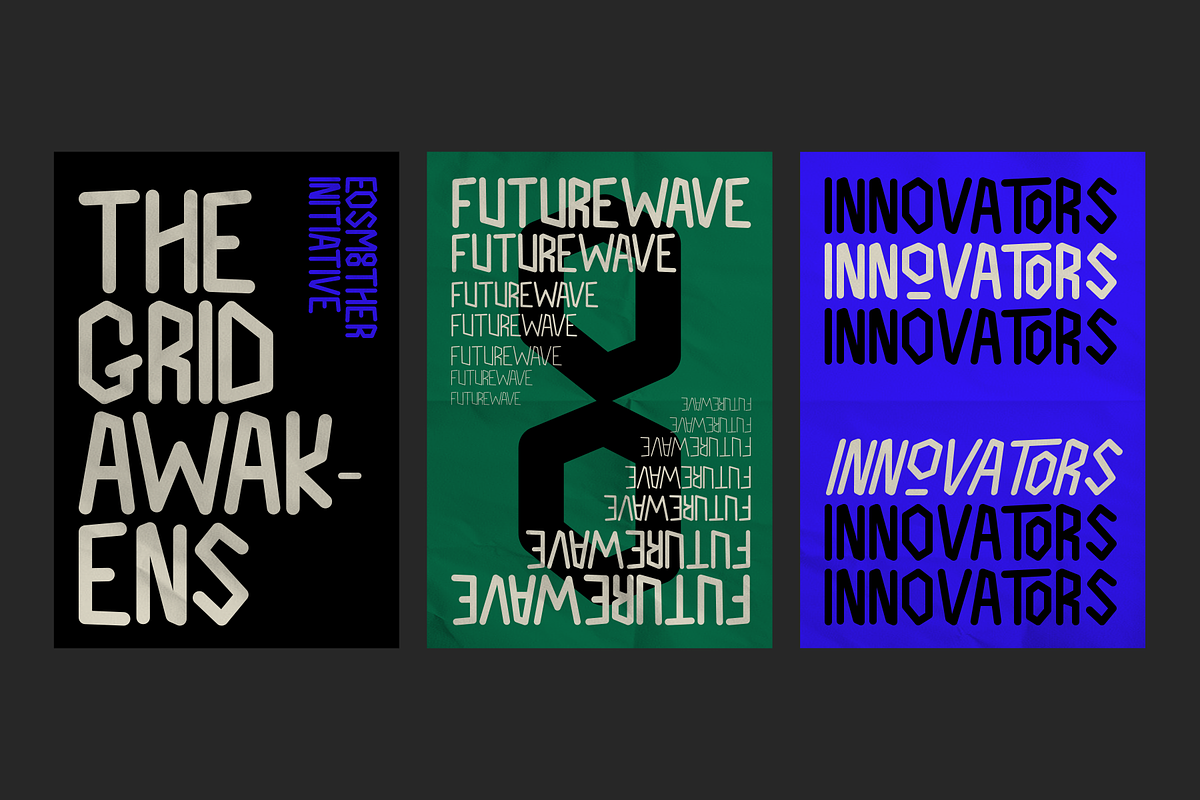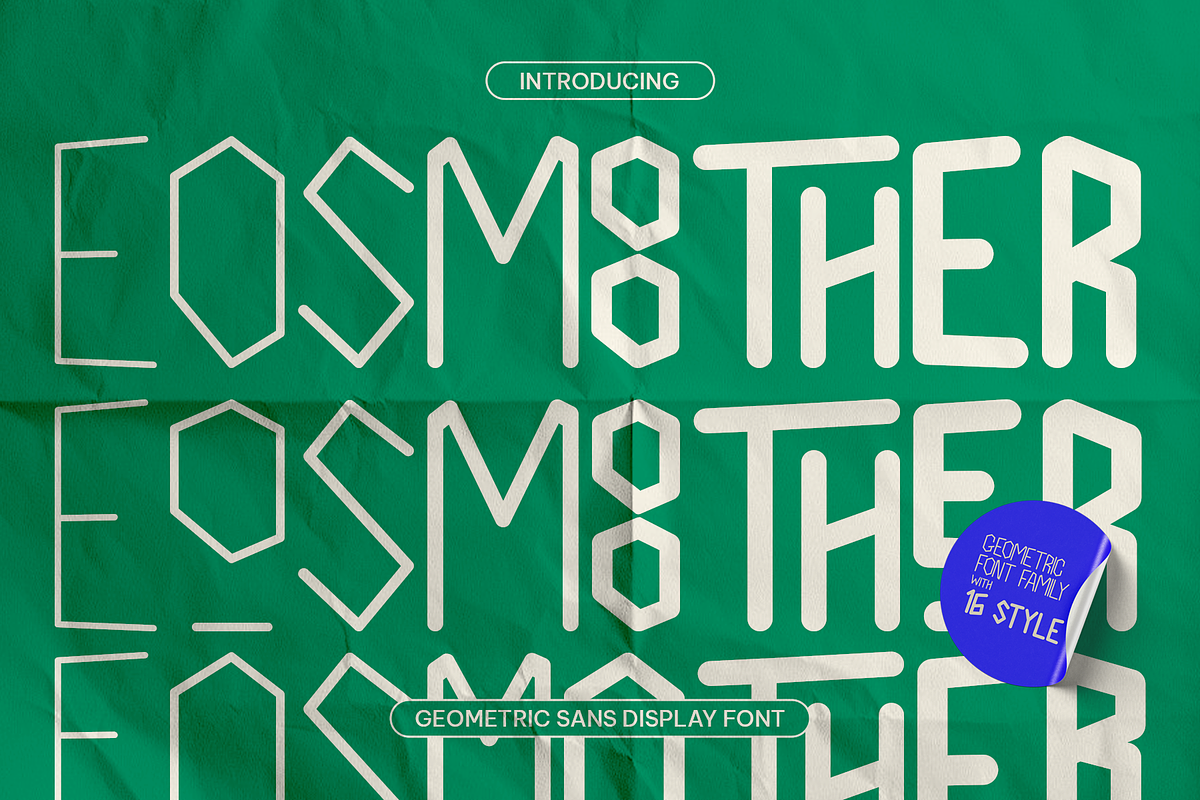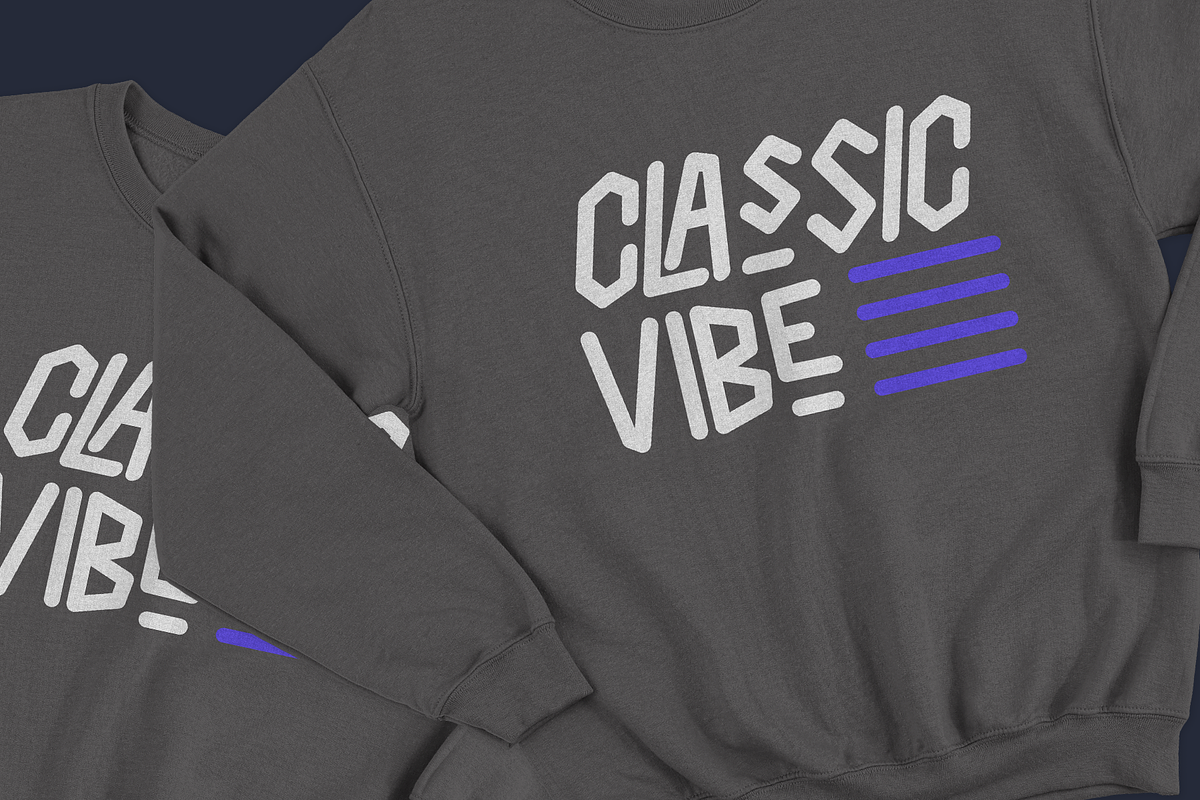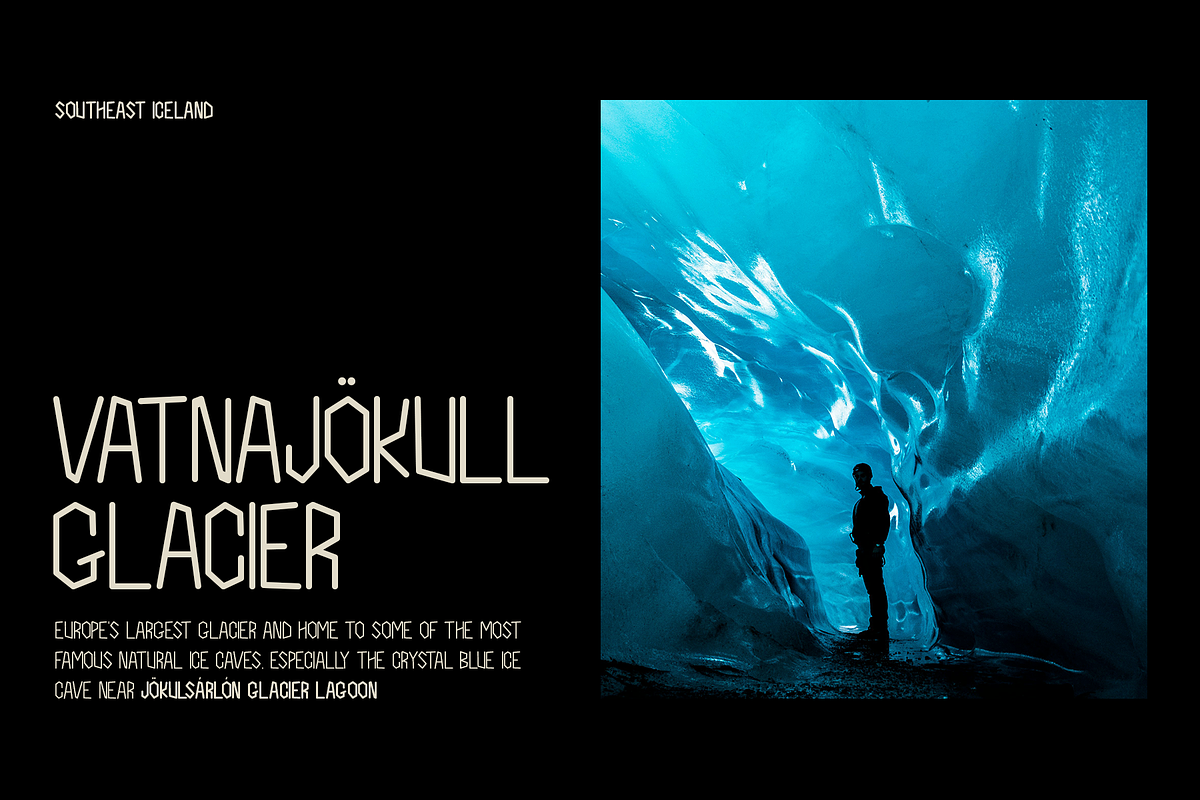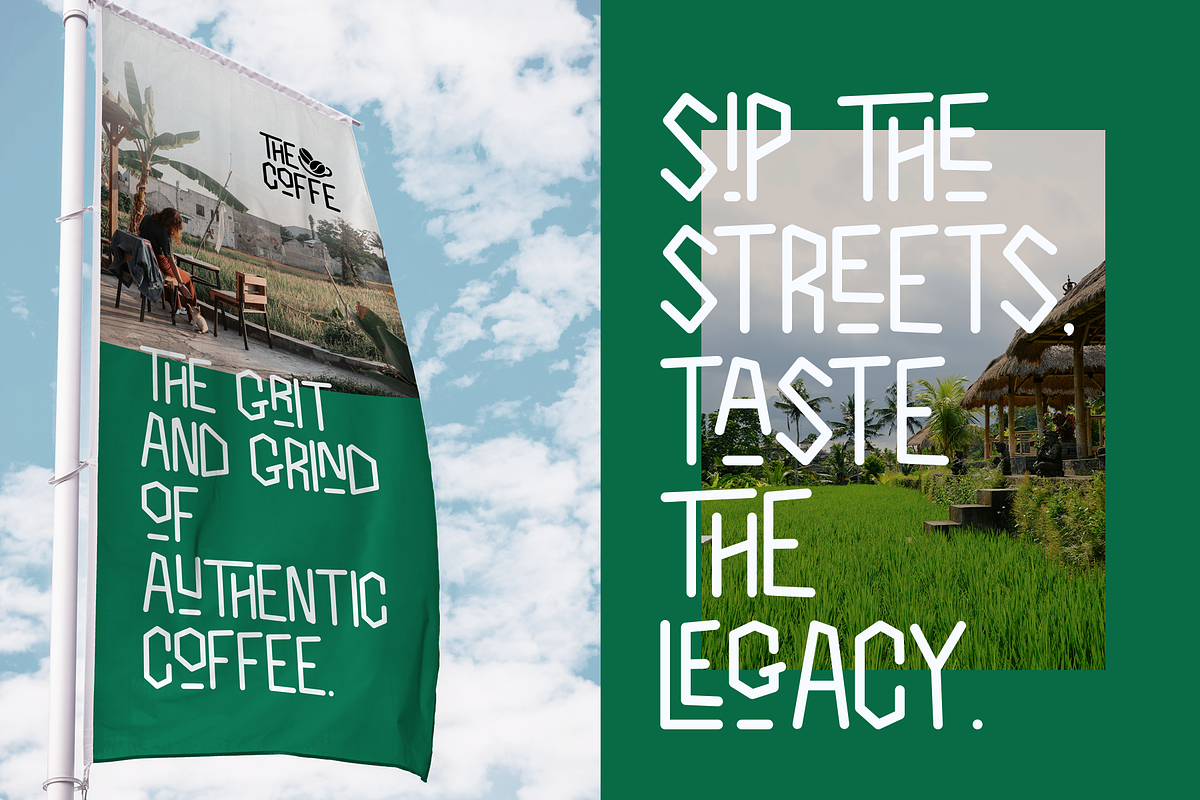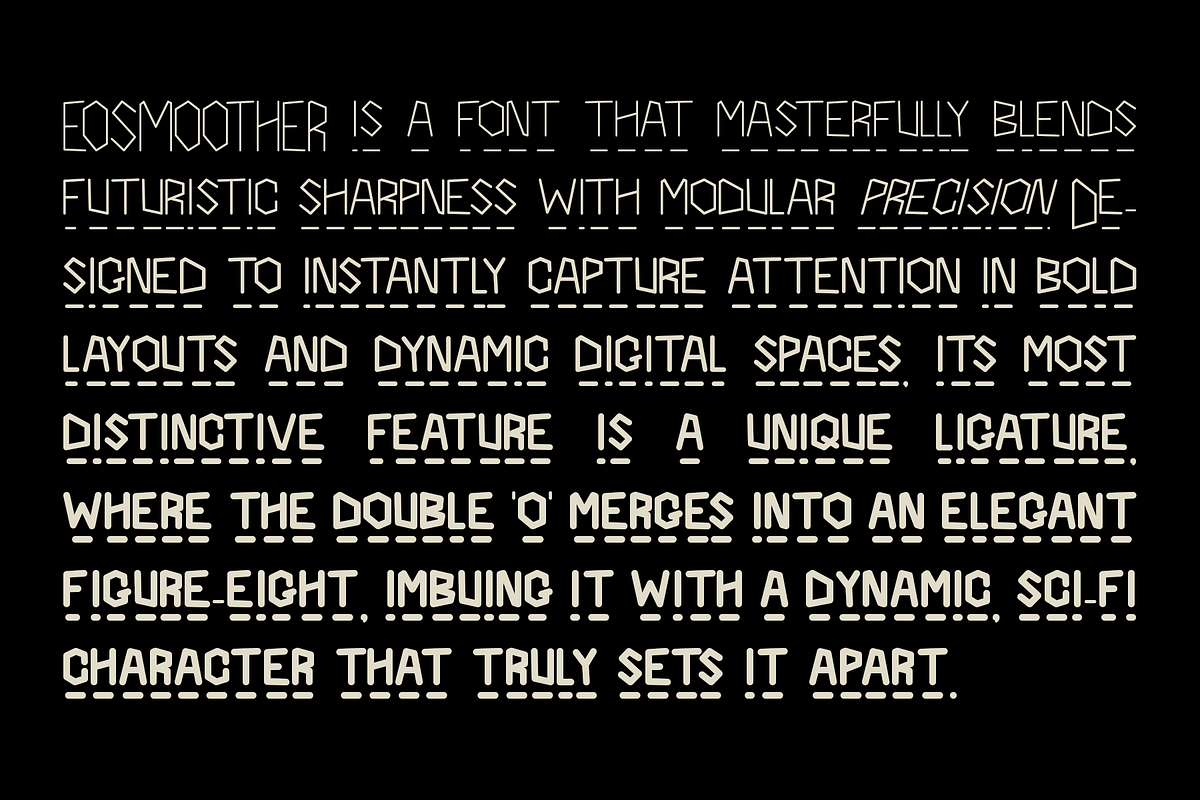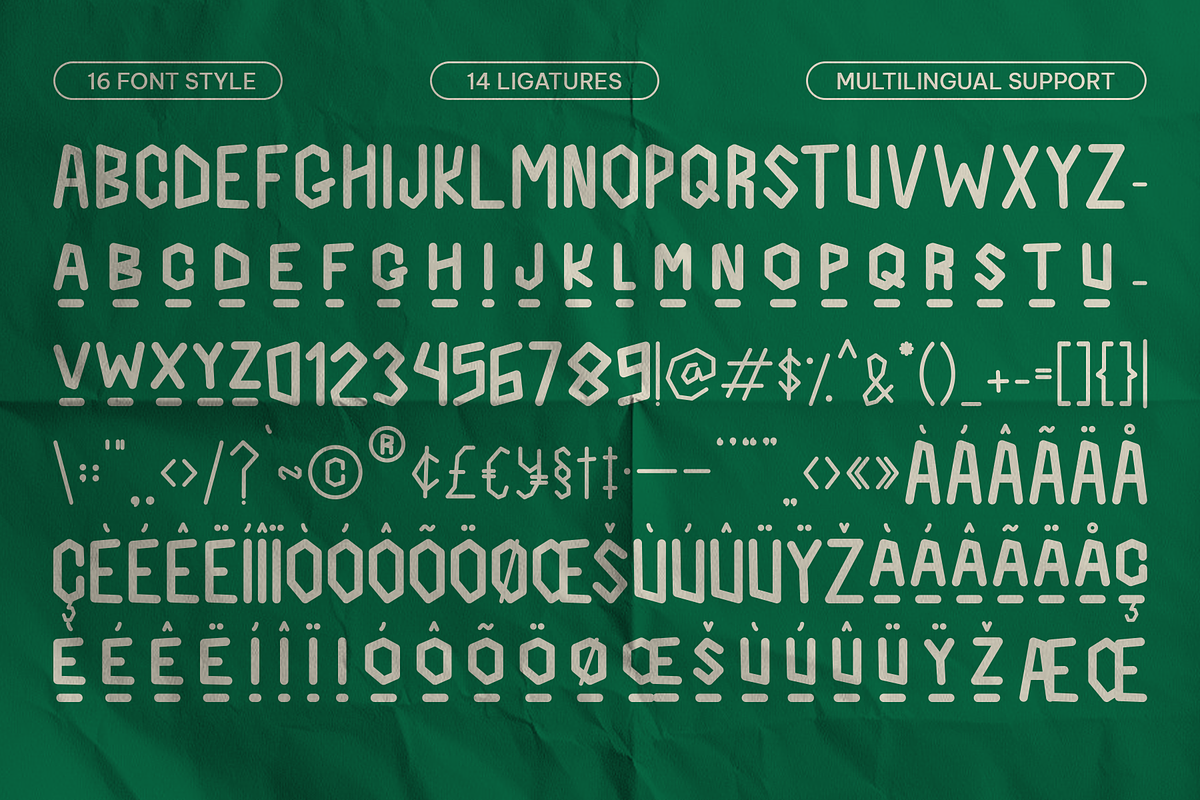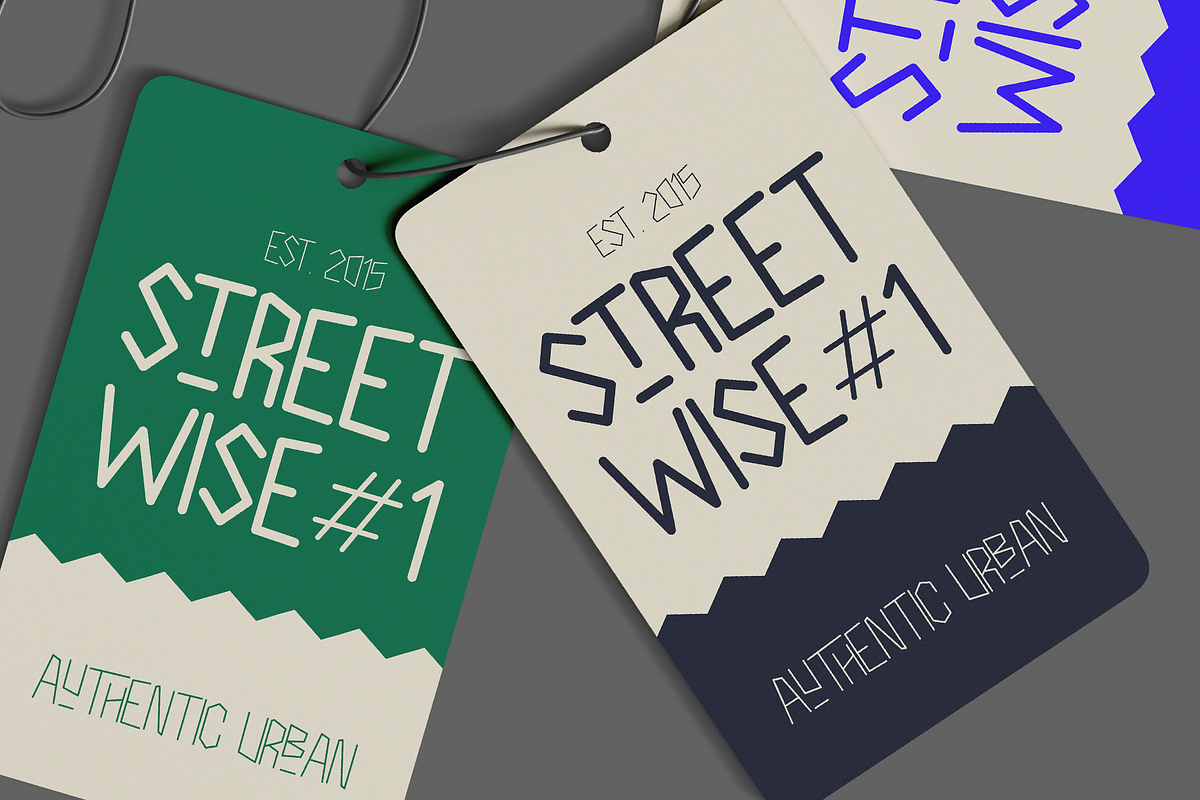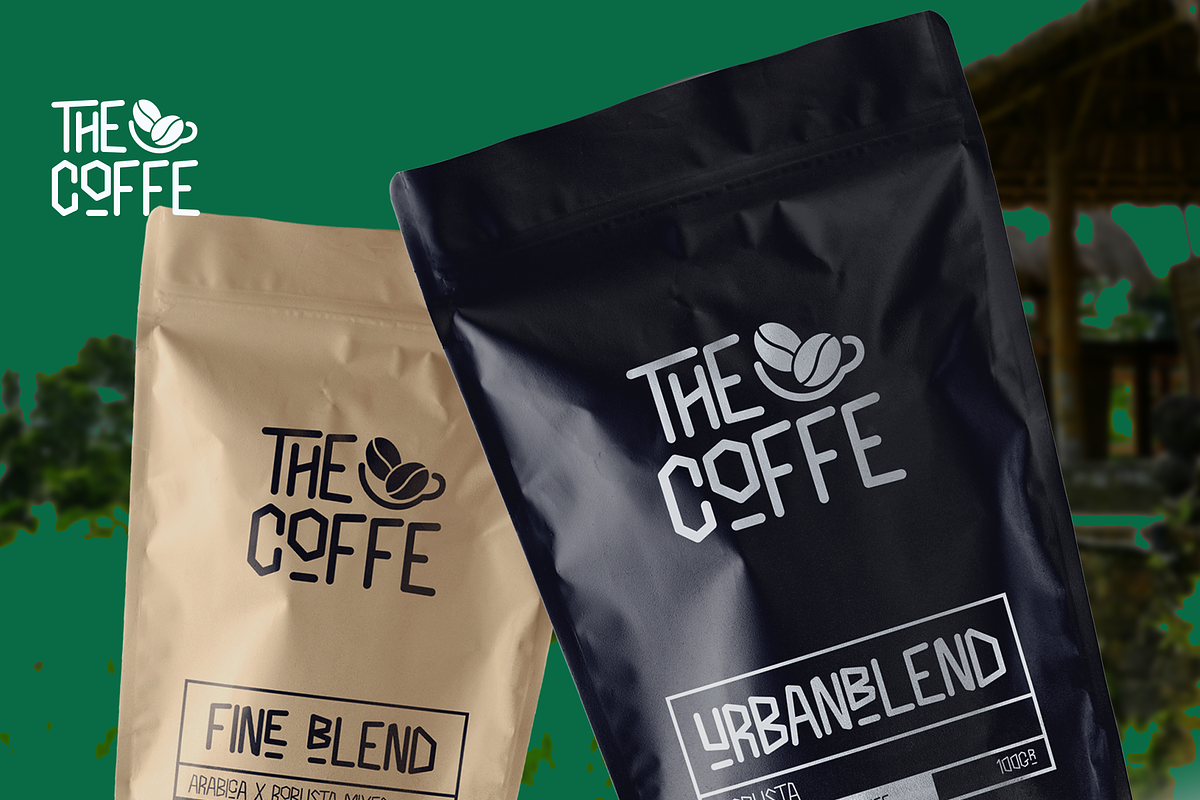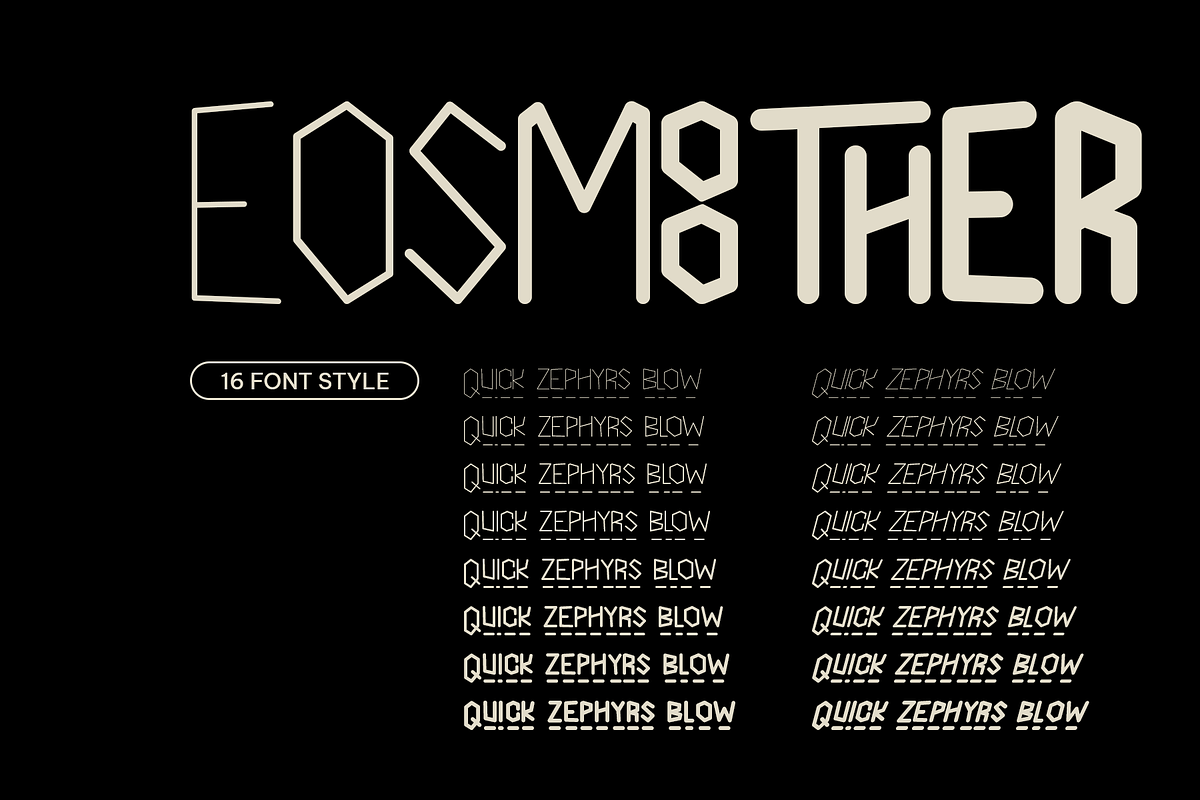
Eosmoother - Geometric Sans Display
EOSMOOTHER is a geometric sans display font family built with precision, structure, and a distinct futuristic tone. Each character is crafted with clean angles and smooth curves, making the typeface both minimal and memorable. Its bold geometry shines in headlines, editorial layouts, posters, tech interfaces, and branding that needs a forward-thinking edge. With 16 unique styles, EOSMOOTHER gives you the flexibility to create powerful visual hierarchies and experimental typographic compositions. Whether you're designing for modern fashion, sci-fi media, or lifestyle branding, EOSMOOTHER keeps your message clear and striking.